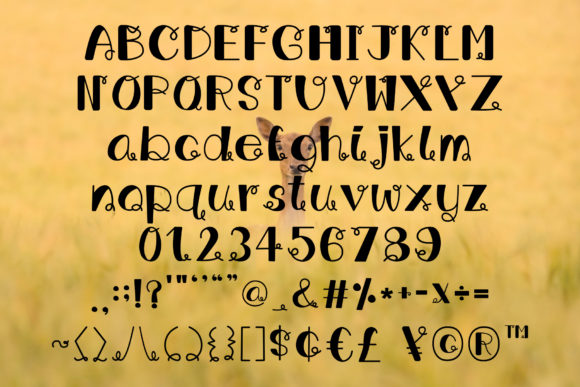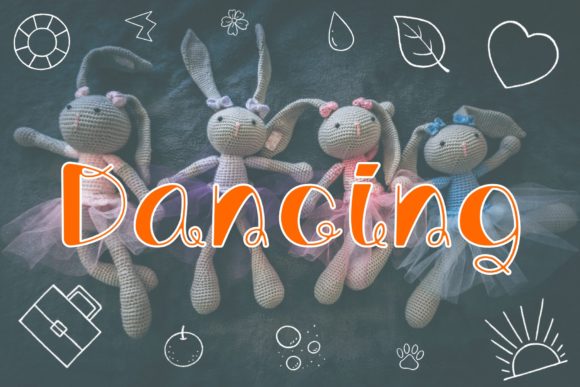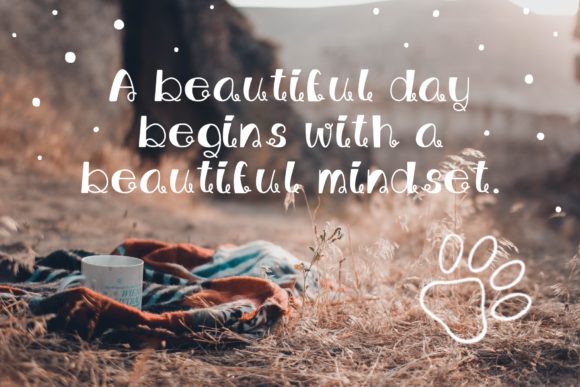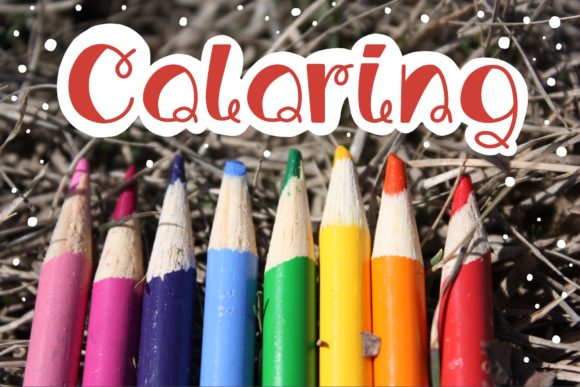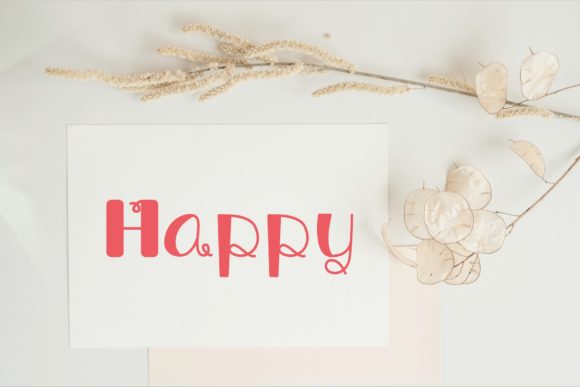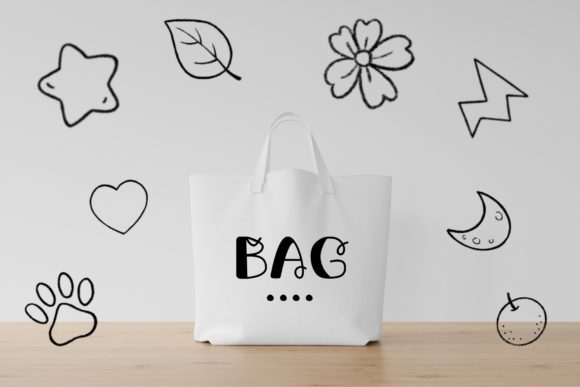
Curling Tail Font: Add a Touch of Whimsy to Your Designs
Are you tired of using the same old fonts in your designs? Look no further than the Curling Tail font, a playful and quirky display font that’s sure to add a touch of magic to any project. With its childlike charm and authentic feel, Curling Tail embodies the perfect blend of fun and creativity.
What is Curling Tail Font?
Curling Tail is a unique and enchanting display font that’s designed to make your creative ideas stand out. Its distinctive curling tail feature adds a playful touch to any text, making it perfect for use in a variety of design projects, from kids’ party invitations to school project posters.
Key Features of Curling Tail Font
• Fun and Quirky: Curling Tail font is the epitome of fun and quirkiness, making it perfect for designs that require a playful touch.
• Authentic Display Font: With its authentic feel, Curling Tail font is sure to add a touch of whimsy to any design project.
• Childlike Playfulness: The font’s childlike charm makes it perfect for use in kids’ projects, party invitations, and school assignments.
• Standout Designs: Curling Tail font is designed to make your creative ideas stand out, ensuring that your designs never go unnoticed.
Uses of Curling Tail Font
Curling Tail font is a versatile display font that can be used in a variety of design projects, including:
• Kids’ Party Invitations: Add a touch of whimsy to your kids’ party invitations with Curling Tail font.
• School Projects: Use Curling Tail font to brighten up school project posters, presentations, and reports.
• Crafting Projects: Curling Tail font is perfect for use in crafting projects, such as handmade cards, gift tags, and scrapbooking.
• Digital Designs: Use Curling Tail font in digital designs, such as social media graphics, blog posts, and website headers.
Tips for Using Curling Tail Font
Here are some tips for getting the most out of Curling Tail font:
• Use it sparingly: Curling Tail font is a display font, so use it sparingly to add emphasis to key words or phrases.
• Pair it with other fonts: Pair Curling Tail font with other fonts to create a unique and visually appealing design.
• Experiment with colors: Curling Tail font looks great in a variety of colors, so don’t be afraid to experiment and find the perfect hue for your design.
Curling Tail font is a fun, quirky, and authentic display font that’s perfect for adding a touch of whimsy to any design project. With its childlike charm and standout features, Curling Tail font is sure to turn any creative idea into a true standout. So why not give it a try and see the magic it can bring to your designs?
Get Creative with Curling Tail Font